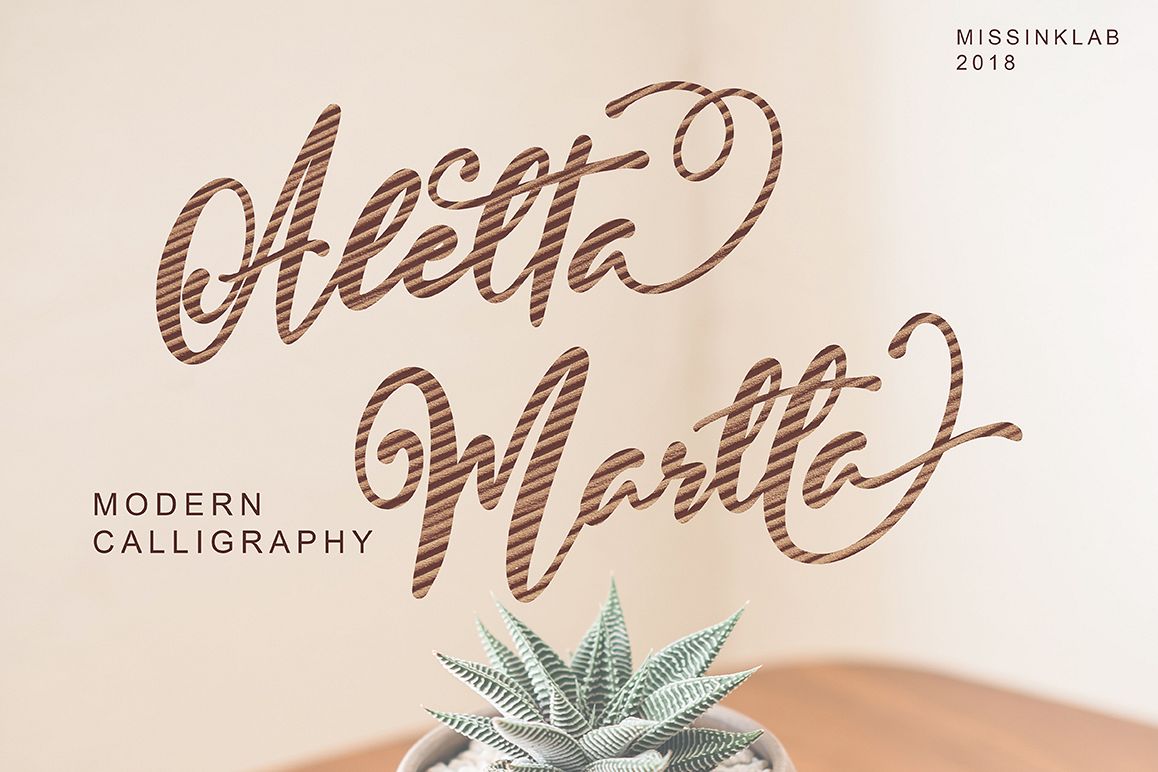
Aletta Martta
Aletta Martta script font font with new style, this font will perfect for many different project ex: quotes, logo, blog header, poster, banding, fashion, apparel, letter, invitation, stationery, etc...